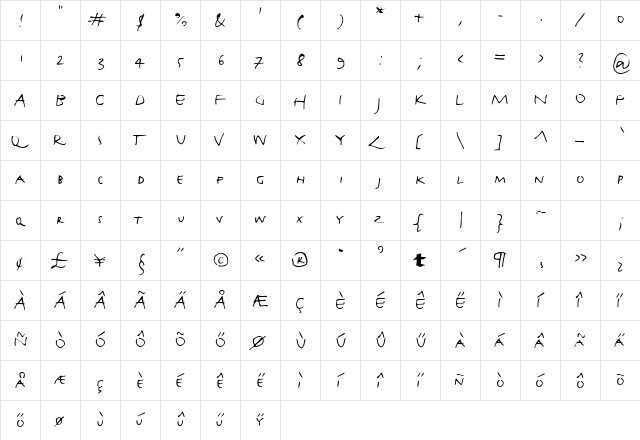
FF Justlefthand-Caps Medium
Design Context for FF Justlefthand-Caps Typeface
FF Justlefthand-Caps flows with the natural rhythm of handwritten lettering, making it ideal for designs that call for warmth and personal expression.